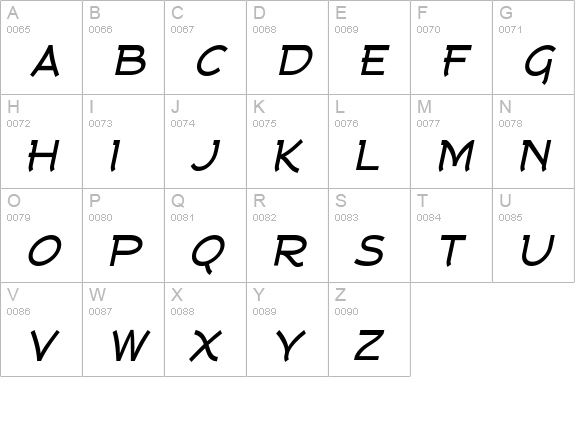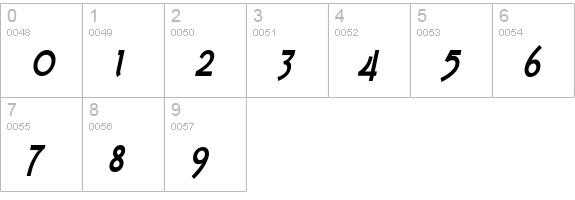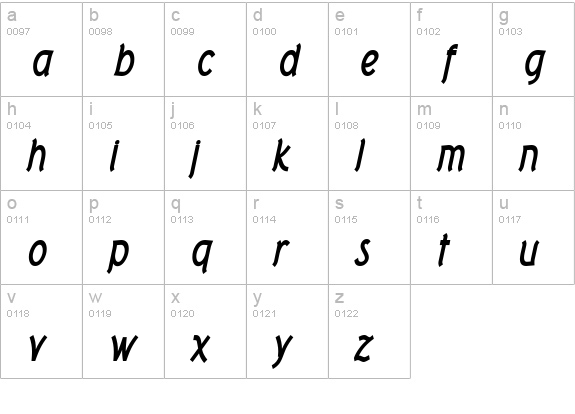
Tork Bold Italic Font Details
Tork Bold Italic is a strong, high-contrast, italic variant in the Tork typeface family \xE2\x80\x94 well suited to headlines, attention-grabbing titles, and strong calls-to-action.
Introducing Tork Bold Italic, a striking and versatile font that exudes confidence and modernity. With its bold and italicized design, this typeface effortlessly captures attention and adds a touch of sophistication to any project. Tork Bold Italic is a perfect choice for headlines, logos, branding materials, advertisements, and more. Its distinctive style combines boldness and elegance, making it suitable for a wide range of applications. Whether you are designing a poster, creating a website, or developing a magazine layout, Tork Bold Italic will make your text stand out with its captivating presence. This font boasts clean lines and sharp edges, giving it a contemporary and polished look. The italicized slant adds a sense of dynamism and movement, making your text appear more engaging and lively. Tork Bold Italic is designed to make a statement, leaving a lasting impression on your audience. What makes Tork Bold Italic even more appealing is that it is available for free download at FontsMarket.com. This means that you can easily access this exceptional font without any cost, making it an excellent choice for designers, students, and anyone who wants to enhance their projects with a high-quality typeface. So, whether you need a font that conveys strength, elegance, or a combination of both, Tork Bold Italic is the perfect solution. Download it now for free at FontsMarket.com and elevate your designs with its bold and captivating presence.